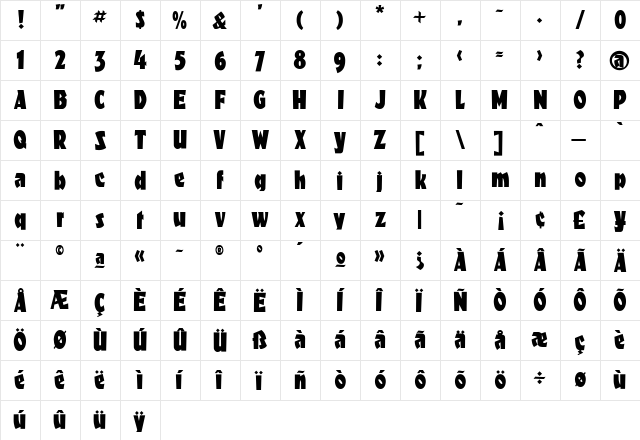
Rumpus Medium
Design Context for Rumpus Typeface
Rumpus is a composed and adaptable typeface that performs quietly and consistently across a wide range of design contexts.